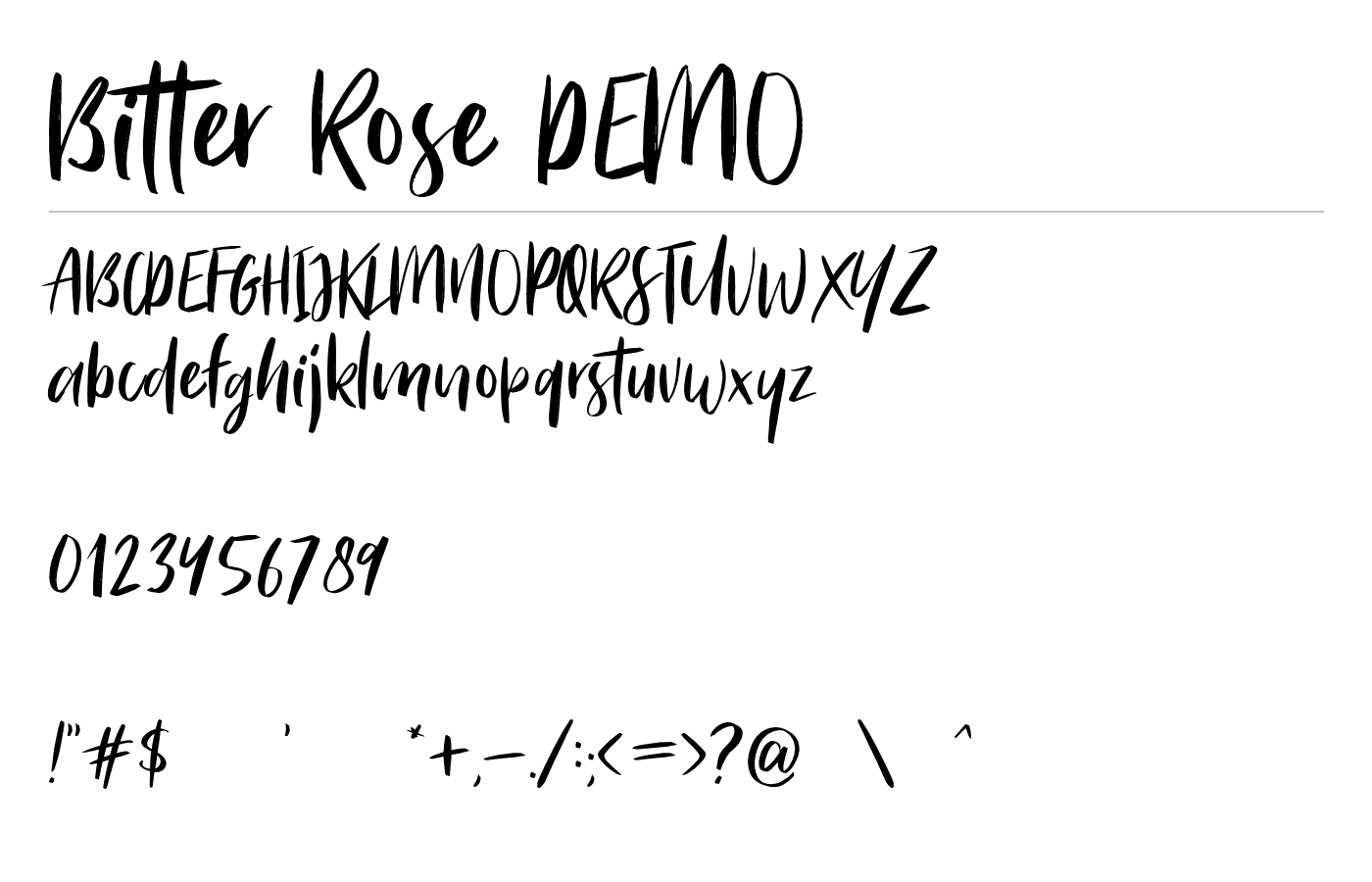
Bitter Rose DEMO is a lively, hand-drawn script font that feels casual and expressive with its tall, narrow letterforms and varying stroke thickness. Its energetic style and organic look make it perfect for creative projects, personal branding, and headlines that need a playful yet confident voice. This font works well where a natural, artisanal vibe is desired, bringing a fresh and approachable touch to designs.
Bitter Rose DEMO Font
About Bitter Rose DEMO Font
| Font family | Bitter Rose DEMO Font |
| Designer | Sarid Ezra |